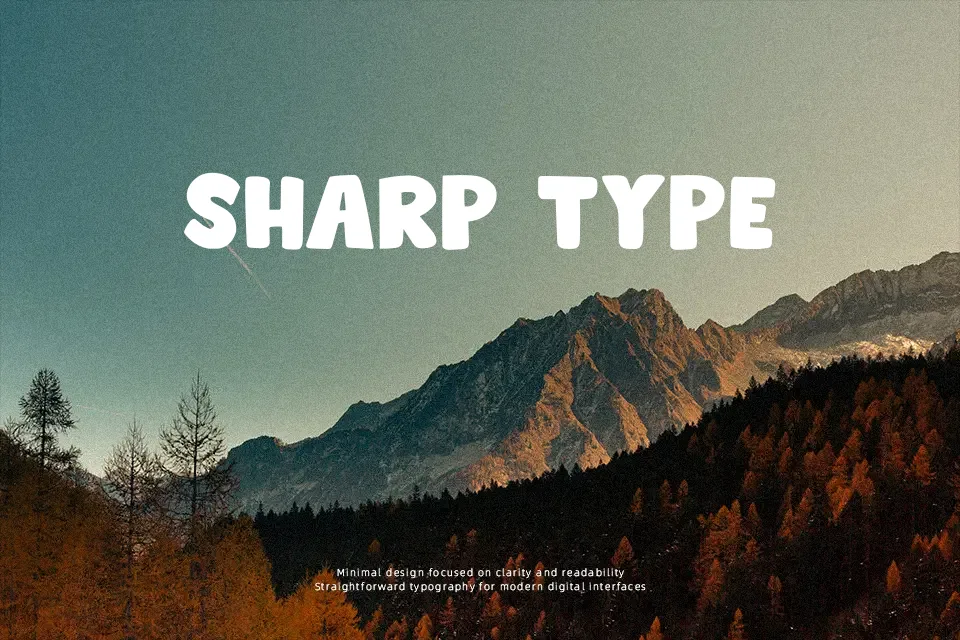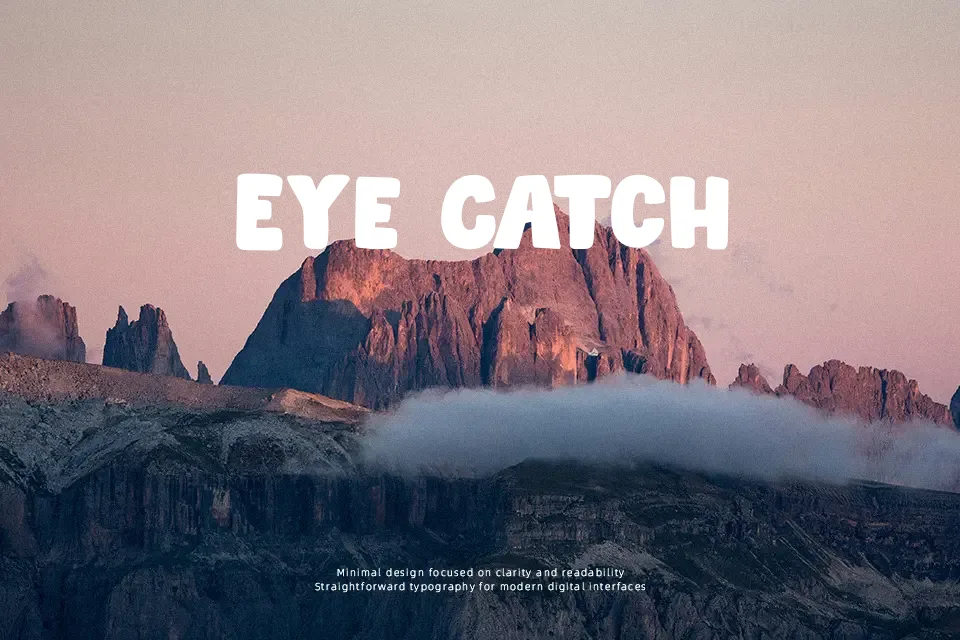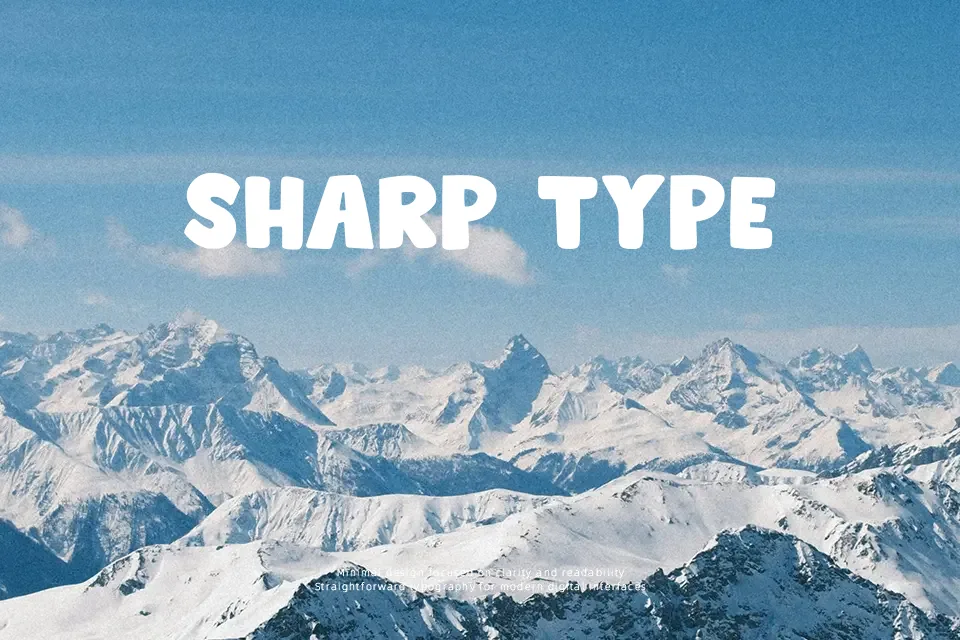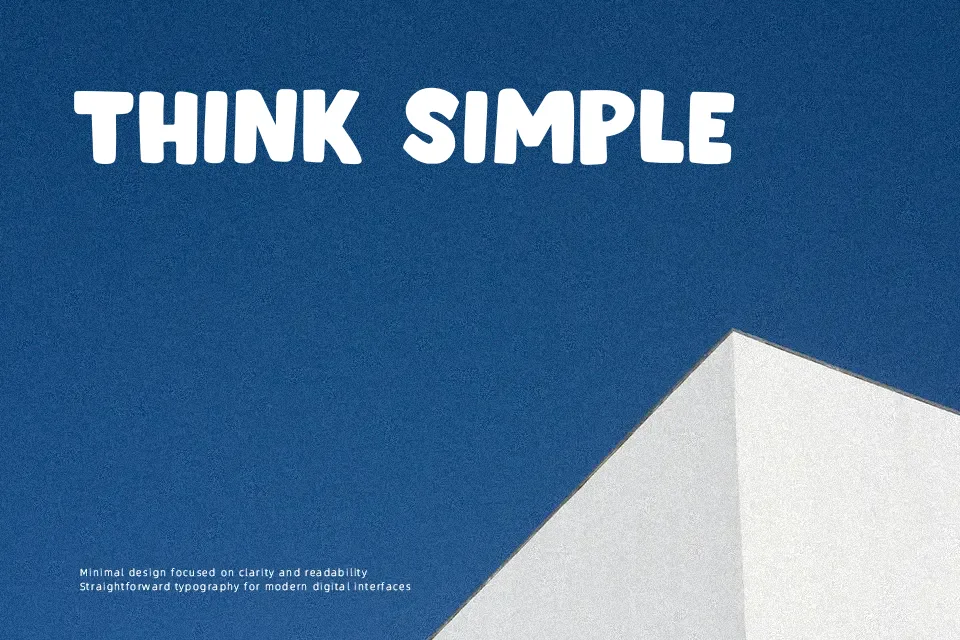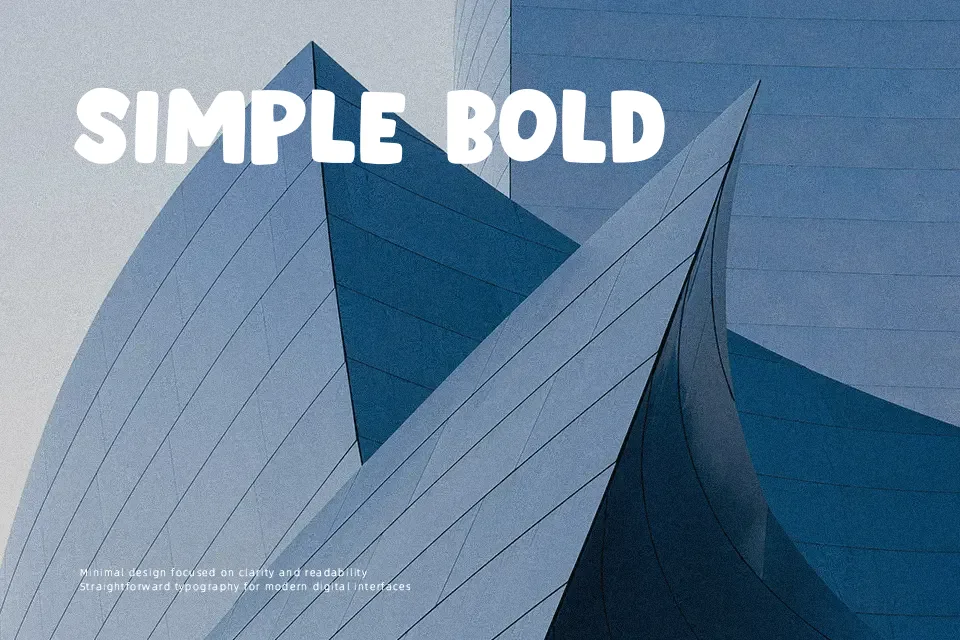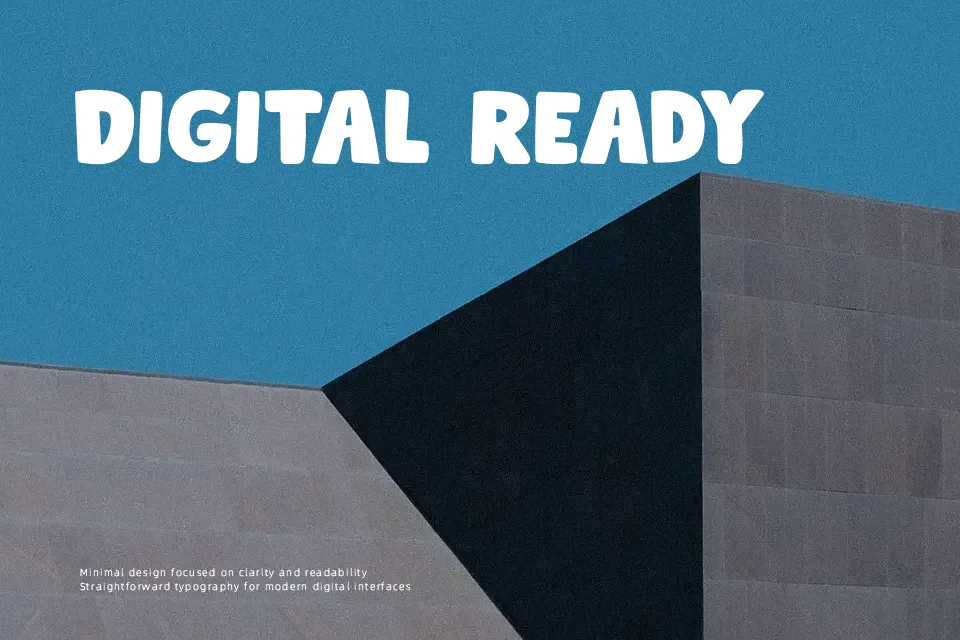
Springwood Display Font
Crafting vibrant headlines for youth oriented media benefits significantly from the chunky geometry of Springwood Display Font. The typeface features robust, softened strokes with minimal contrast and rounded terminals that convey an approachable demeanor. Consistent baseline proportions and tight character tracking generate solid word blocks that draw immediate attention across billboards and merchandise labels. While the generous letter width maintains strong legibility at substantial display scales, the dense inner counters severely reduce reading comfort in continuous text settings. The letterforms deliver remarkable punch in short compositions but lack the open apertures required for small captions. Consequently, designers should restrict its application to brief promotional statements.
Best For: children’s book covers, playful product packaging, animated video titles, festival poster headlines
Not Ideal For: long paragraph text, dense editorial layouts, formal business documents, small interface labels
Perfect for headline, kids, and logo, with a bold and comic style.